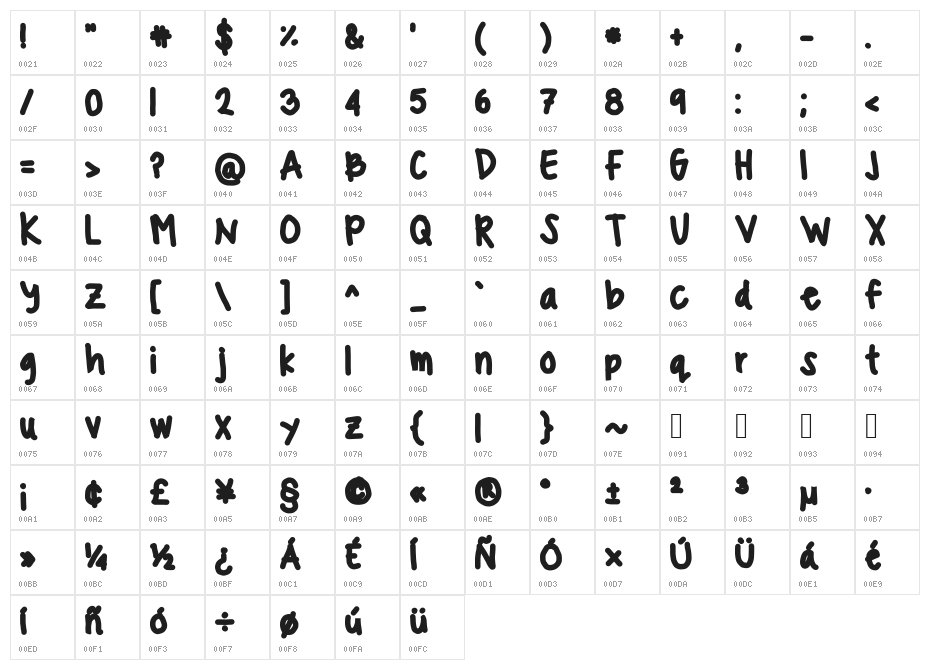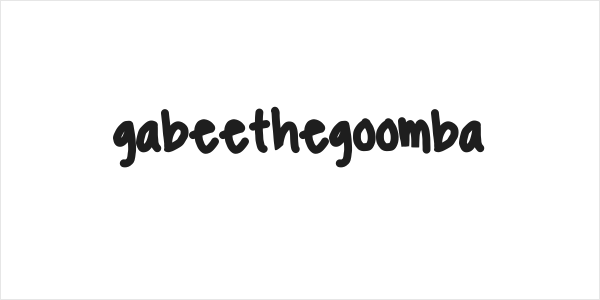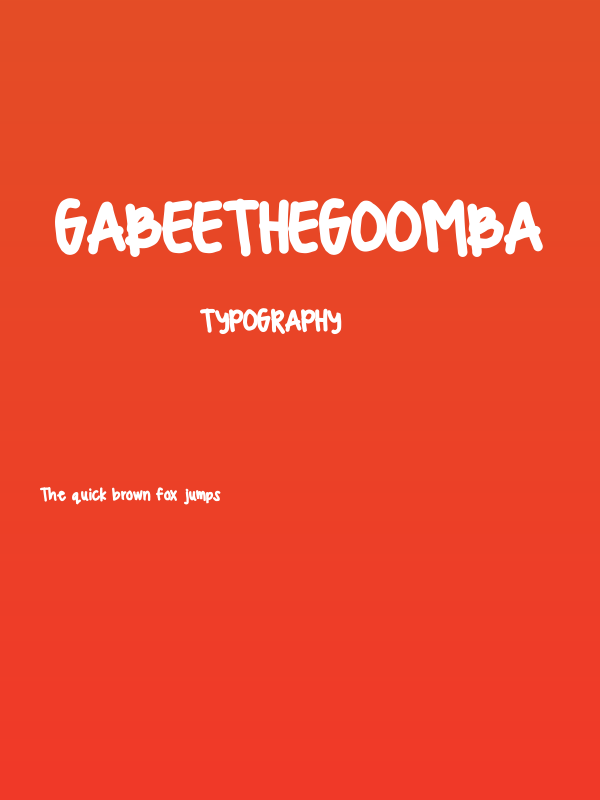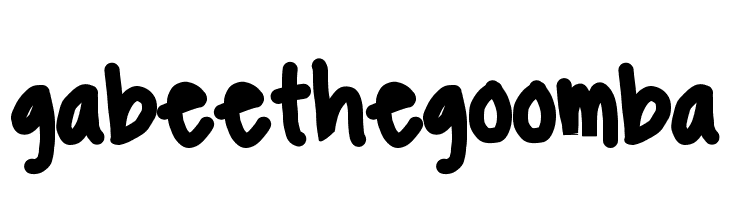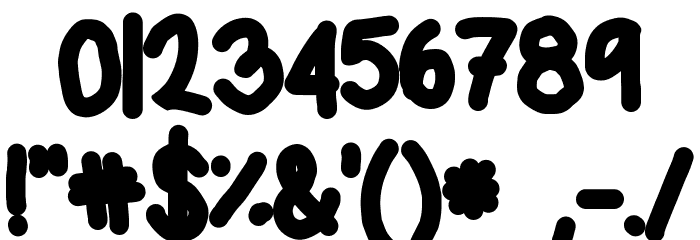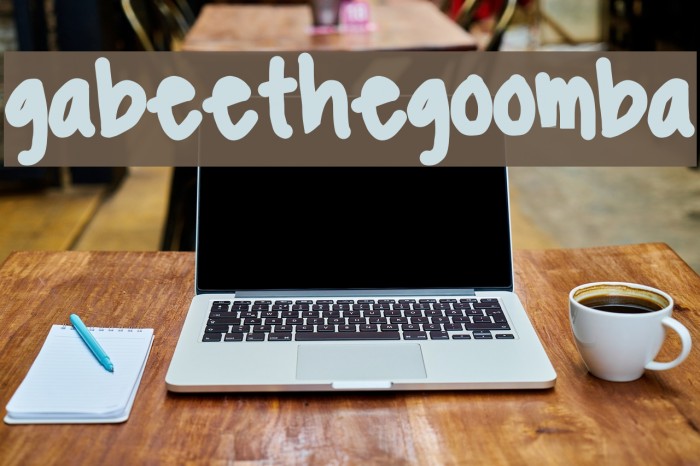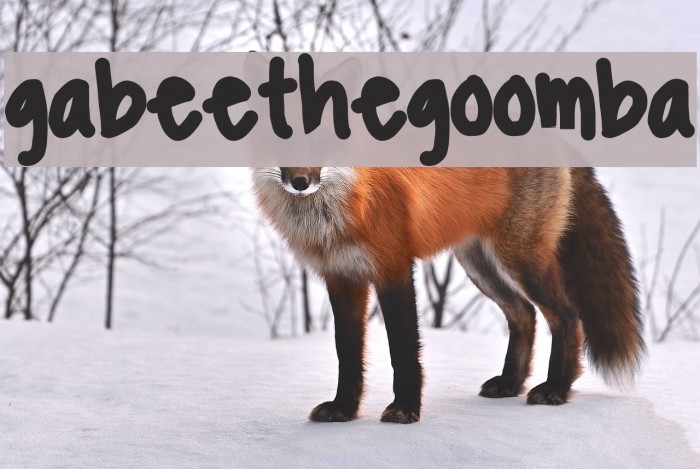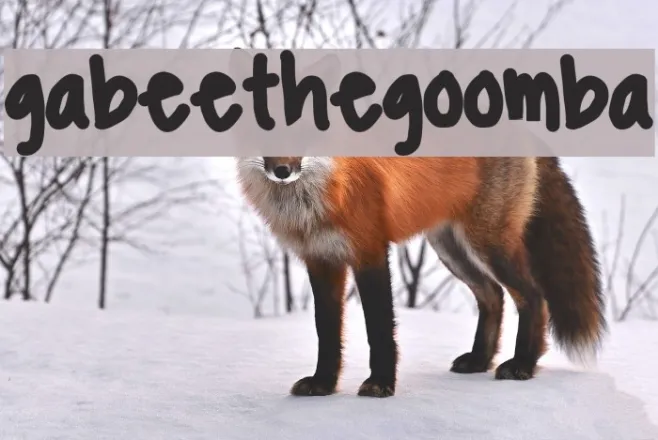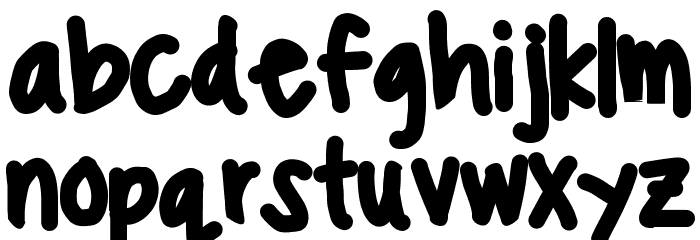
gabeethegoomba Font
gabeethegoomba Description
This playful and bold font features a handwritten style with thick, rounded strokes that convey a sense of fun and creativity. The characters are slightly irregular, adding a whimsical touch that makes it stand out. It includes both uppercase and lowercase letters, numbers, and a variety of special characters. The overall appearance is casual and friendly, making it ideal for projects that require a personal and approachable feel. The font's thick lines and rounded edges ensure high legibility, even at smaller sizes, while the unique character shapes add a distinctive flair.
| Proposed Projects | Ideal for children's books, greeting cards, playful branding, and social media graphics. |